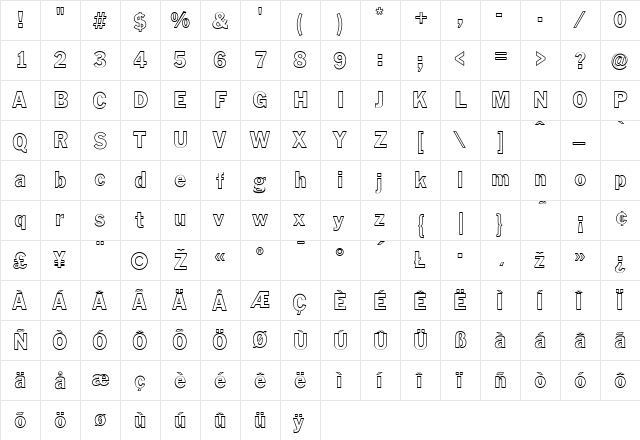
FranklinGothicOutline Regular
Design Context for FranklinGothicOutline Typeface
FranklinGothicOutline is built around its visual character rather than neutral utility — its distinctive forms are designed to make an impression at display sizes.
Font Pairing: Pair with a clean neutral sans-serif for body copy to let FranklinGothicOutline's character lead without overwhelming the composition.
Pro Tip: Use FranklinGothicOutline exclusively at display sizes — it was designed to be seen, not read at length. Let a neutral companion handle body copy.